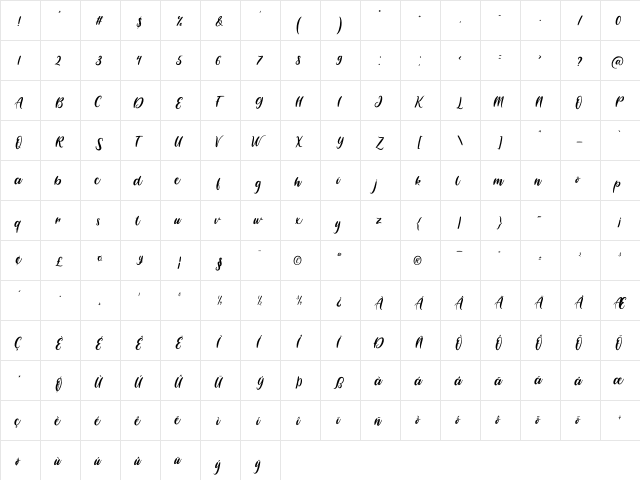
Daylight Regular
| Foundry | FallenGraphic |
| Designer | Vava Aryanto |
Design Context for Daylight Typeface
Daylight is a composed and adaptable typeface that performs quietly and consistently across a wide range of design contexts. The delicate stroke weight brings airiness and refinement to layouts.